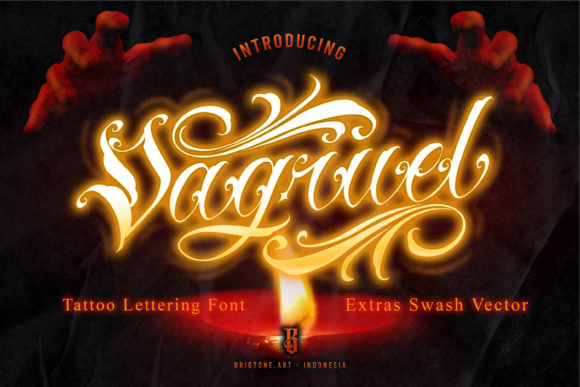
Dagruel Font: Elevate Your Designs with Elegance and Sophistication
In the world of typography, a font can make or break a design. With the right font, your creation can instantly gain an edge, conveying a sense of sophistication and elegance. Dagruel, a dazzling script font, is one such treasure that can elevate your designs to new heights. In this article, we’ll explore the features, benefits, and uses of Dagruel, and why it’s a must-have in your font library.
What is Dagruel Font?
Dagruel is a beautifully crafted script font, meticulously designed to add a touch of luxury and refinement to any project. Its highly detailed and intricate design makes it perfect for a wide range of applications, from branding and advertising to packaging and digital media.
Key Features of Dagruel Font
• Neatly Crafted: Dagruel’s design is characterized by its neat and organized structure, making it easy to read and understand.
• Highly Detailed: The font features intricate details, giving it a sense of sophistication and elegance.
• Versatile: Dagruel can be used for a wide range of projects, including logos, headings, titles, and more.
• Script Style: The font’s script style gives it a unique and distinctive look, perfect for adding a touch of personality to your designs.
Benefits of Using Dagruel Font
So, why should you choose Dagruel for your next project? Here are just a few benefits of using this amazing font:
• Enhance Your Designs: Dagruel has the potential to enhance any creation, adding a touch of elegance and sophistication.
• Stand Out from the Crowd: With its unique script style and intricate details, Dagruel can help your designs stand out from the competition.
• Save Time: The font’s neat and organized structure makes it easy to read and understand, saving you time and effort.
• Flexibility: Dagruel can be used for a wide range of projects, making it a versatile addition to your font library.
Who Can Benefit from Dagruel Font?
Dagruel is a versatile font that can benefit a wide range of designers and crafters, including:
• Graphic Designers: Dagruel is perfect for graphic designers looking to add a touch of elegance and sophistication to their designs.
• Branding Experts: The font’s unique script style and intricate details make it ideal for branding projects, helping to create a lasting impression.
• Digital Artists: Dagruel can be used for digital art projects, adding a touch of personality and style.
• Crafters: The font’s versatility makes it perfect for crafters, who can use it for a wide range of projects, from card making to scrapbooking.
Tips for Using Dagruel Font
To get the most out of Dagruel, here are a few tips to keep in mind:
• Use it Sparingly: Dagruel is a statement font, so use it sparingly to avoid overwhelming your design.
• Pair it with Other Fonts: Experiment with pairing Dagruel with other fonts to create a unique and interesting look.
• Adjust the Size: Adjust the size of the font to create visual interest and hierarchy in your design.
In conclusion, Dagruel is a dazzling script font that can elevate your designs to new heights. Its highly detailed and intricate design makes it perfect for a wide range of applications, from branding and advertising to packaging and digital media. With its versatility, elegance, and sophistication, Dagruel is a must-have in your font library. So why wait? Add Dagruel to your collection today and take your designs to the next level!